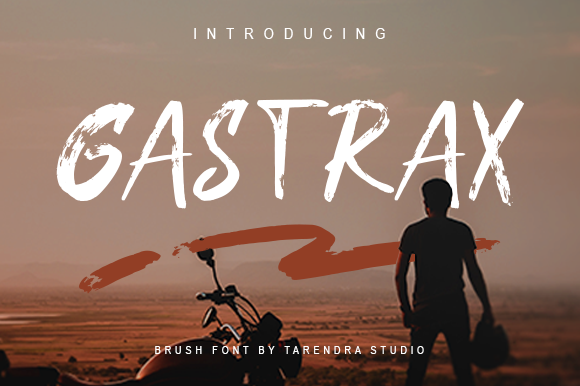
Behold, Gastrax Font, the epitome of modern typography, crafted with meticulous attention to detail by Juliolailydomingo. This remarkable display font stands as a testament to the transformative power of words, designed to elevate your designs to unprecedented heights.
Gastrax Font is not merely a collection of letters; it is an artistic masterpiece that breathes life into your creative endeavors. Its bold and confident strokes, reminiscent of a skilled calligrapher's hand, lend an air of sophistication and elegance to any project. Whether you're a seasoned designer or just starting, Gastrax Font will unleash your inner artist and ignite your passion for creating visually stunning designs.
Imagine the impact of your website adorned with the Gastrax Font, its bold presence commanding attention and leaving a lasting impression on your visitors. Your words will dance across the screen, imbued with a captivating energy that draws readers in and keeps them enthralled. Let Gastrax Font be the voice of your brand, conveying your message with clarity, impact, and an unwavering sense of style.
Gastrax Font's versatility extends far beyond digital realms. Its rugged charm shines through in print, adding a touch of urban grit to posters, flyers, and brochures. Unleash your creativity and explore the endless possibilities, from eye-catching logos that demand attention to stunning social media graphics that leave a lasting impression.
With Gastrax Font, you'll never again struggle to find the perfect font for your projects. Its wide range of applications makes it an indispensable tool for designers of all levels. It's the perfect choice for modern websites, social media posts, branding materials, packaging design, and countless other projects waiting to be brought to life.